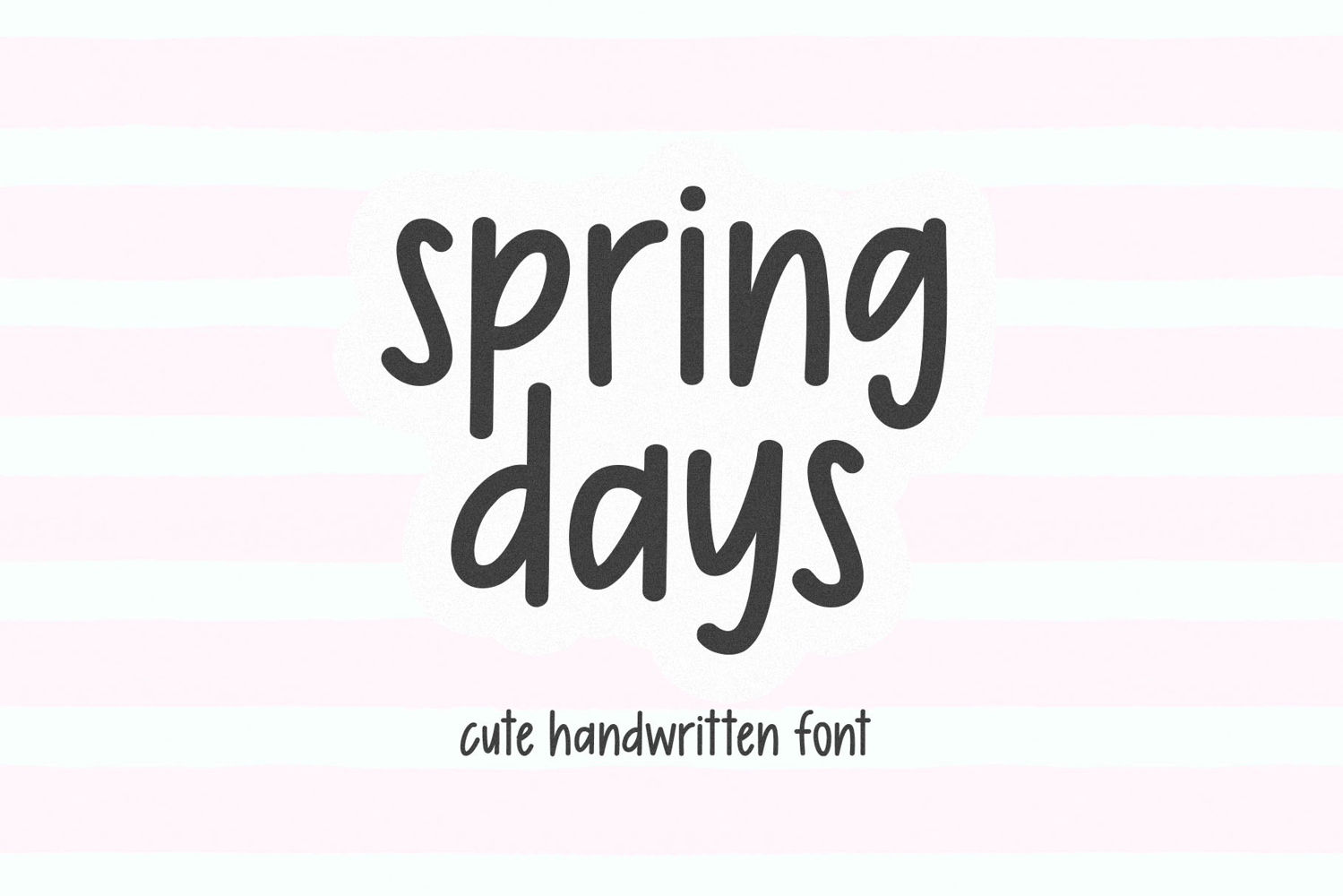
Spring Days - Cute Handwritten Font
Spring Days
Spring Days is a cute and quirky serif font.
This font is perfect for cricut projects, logos, shirts, svg files, planners, stickers, quotes, social media and more!